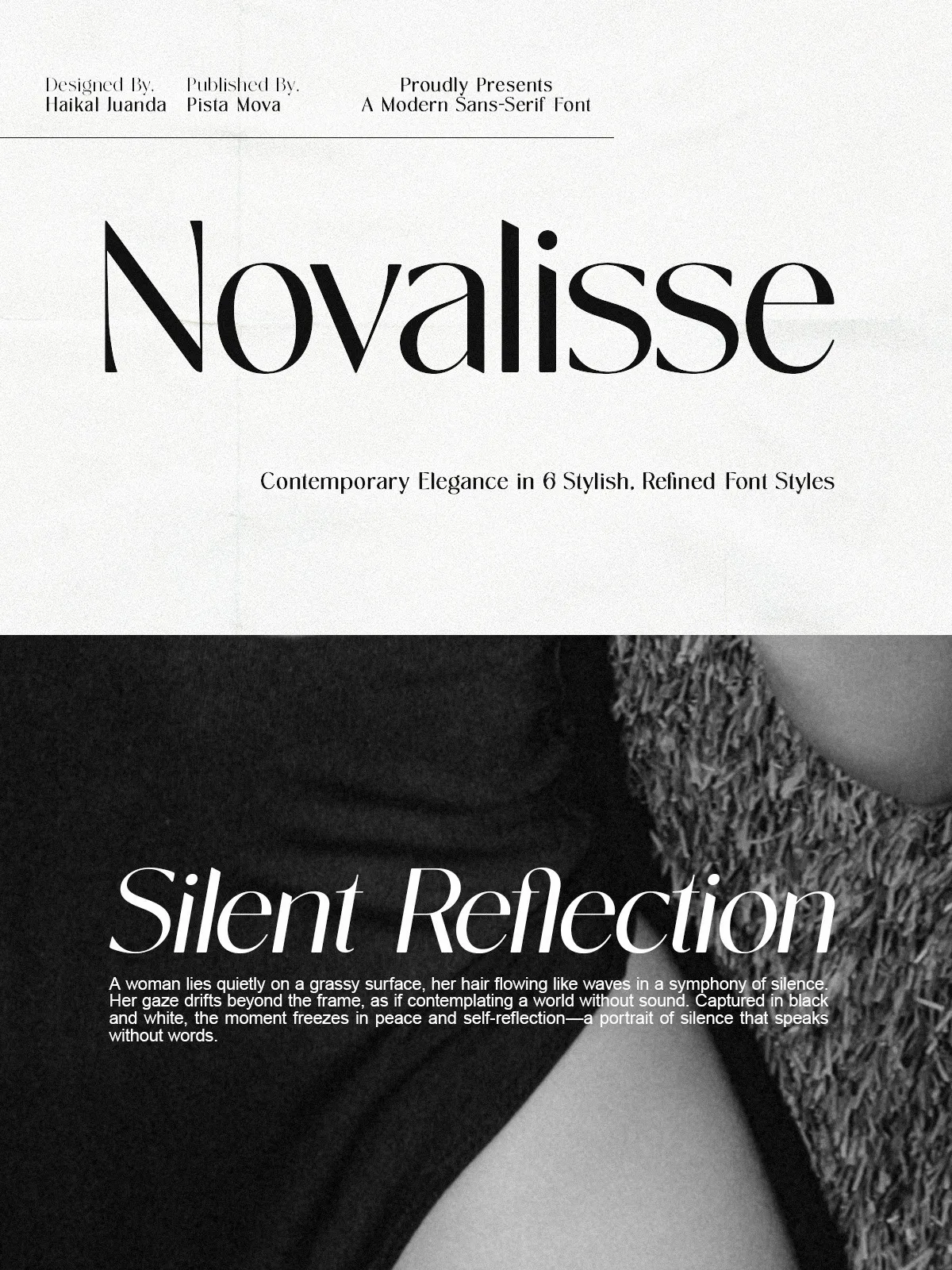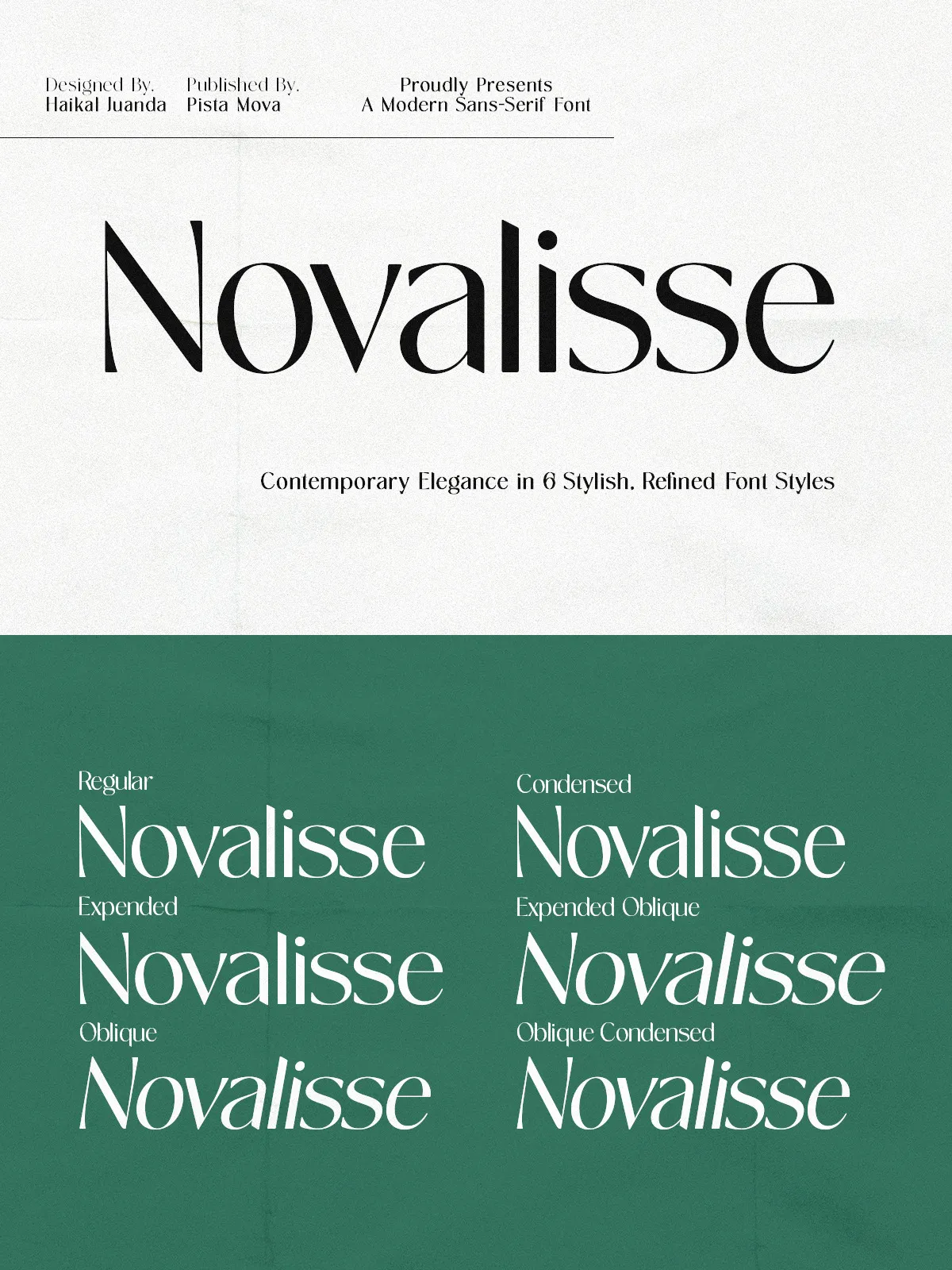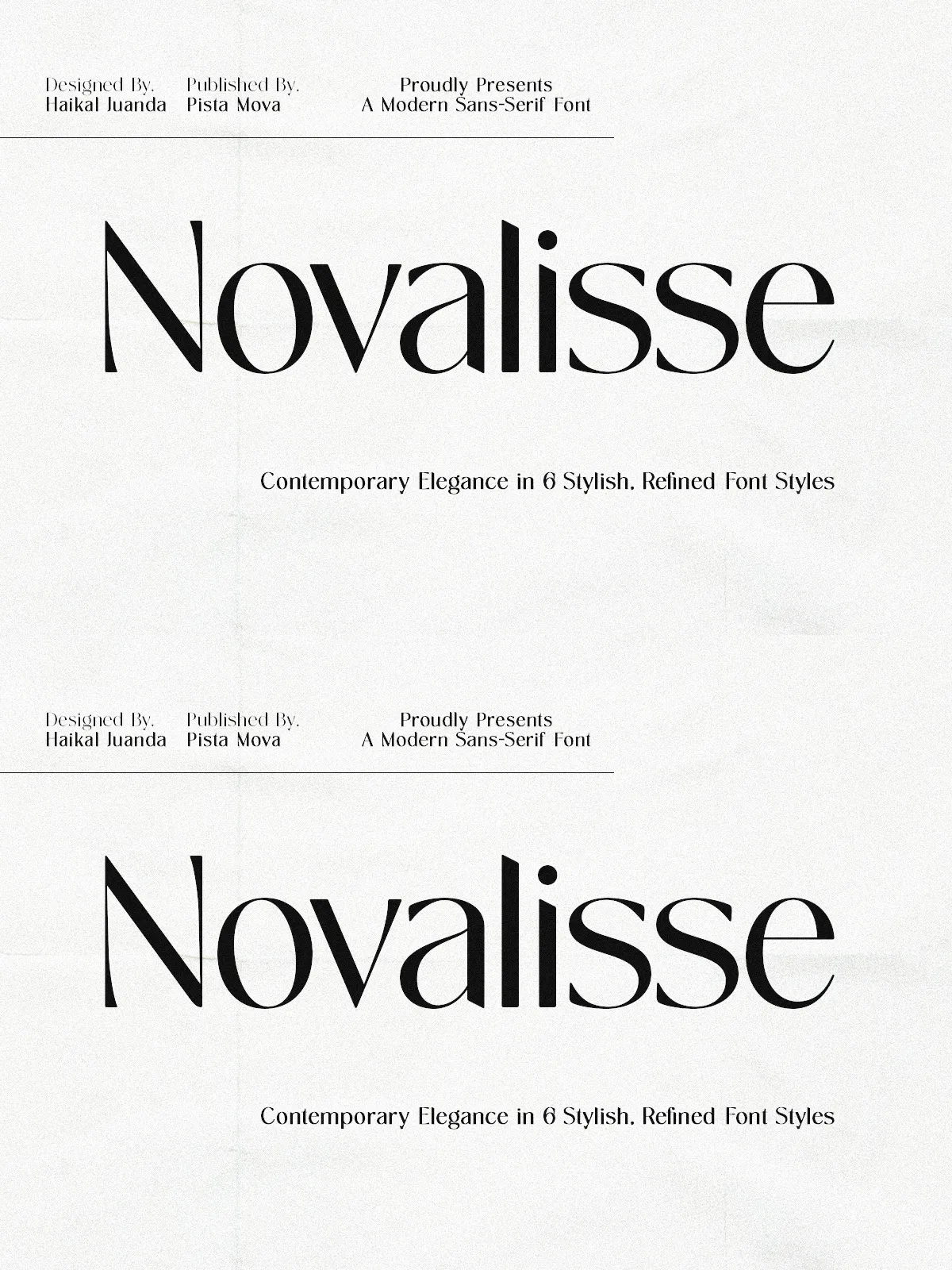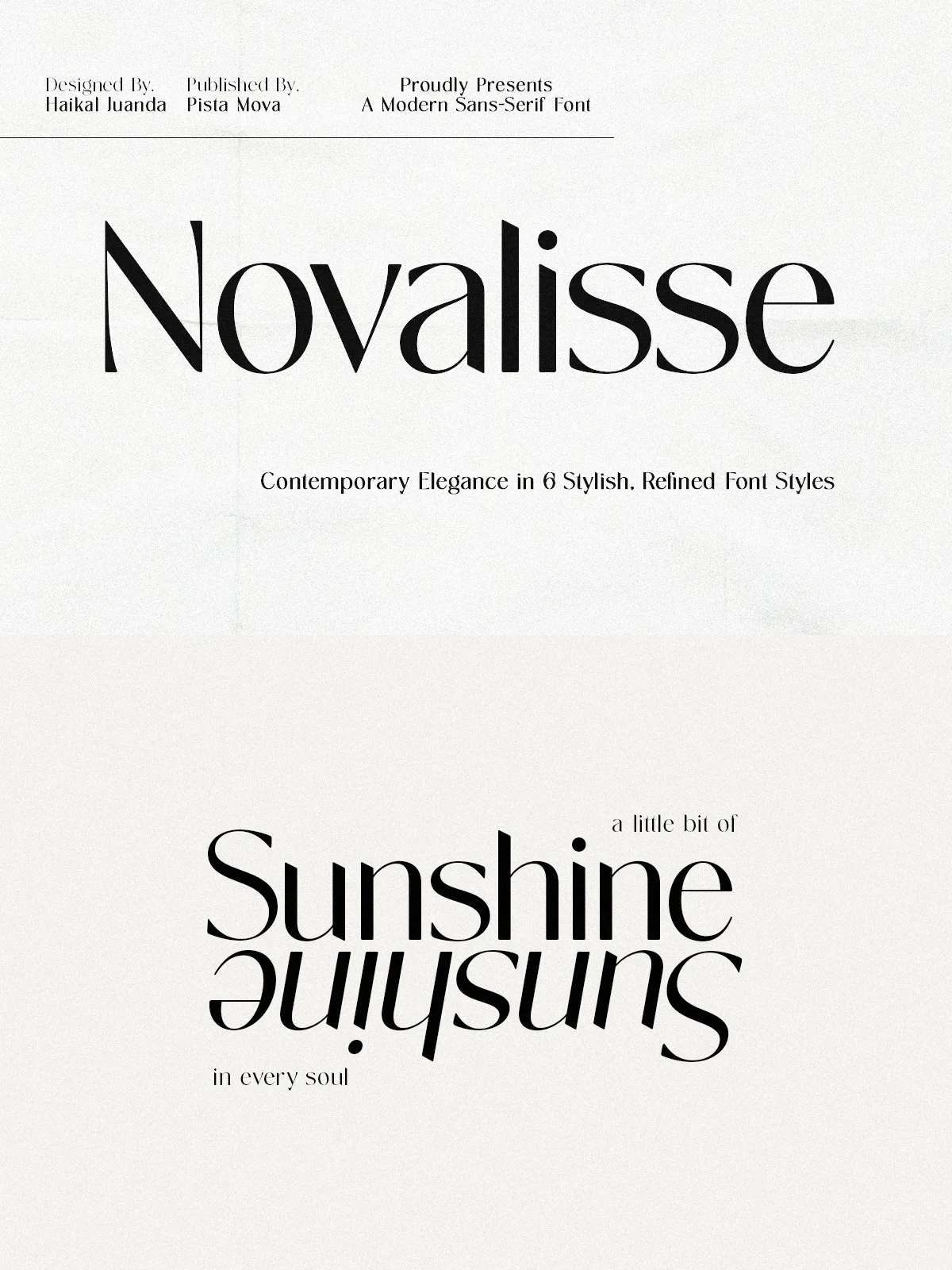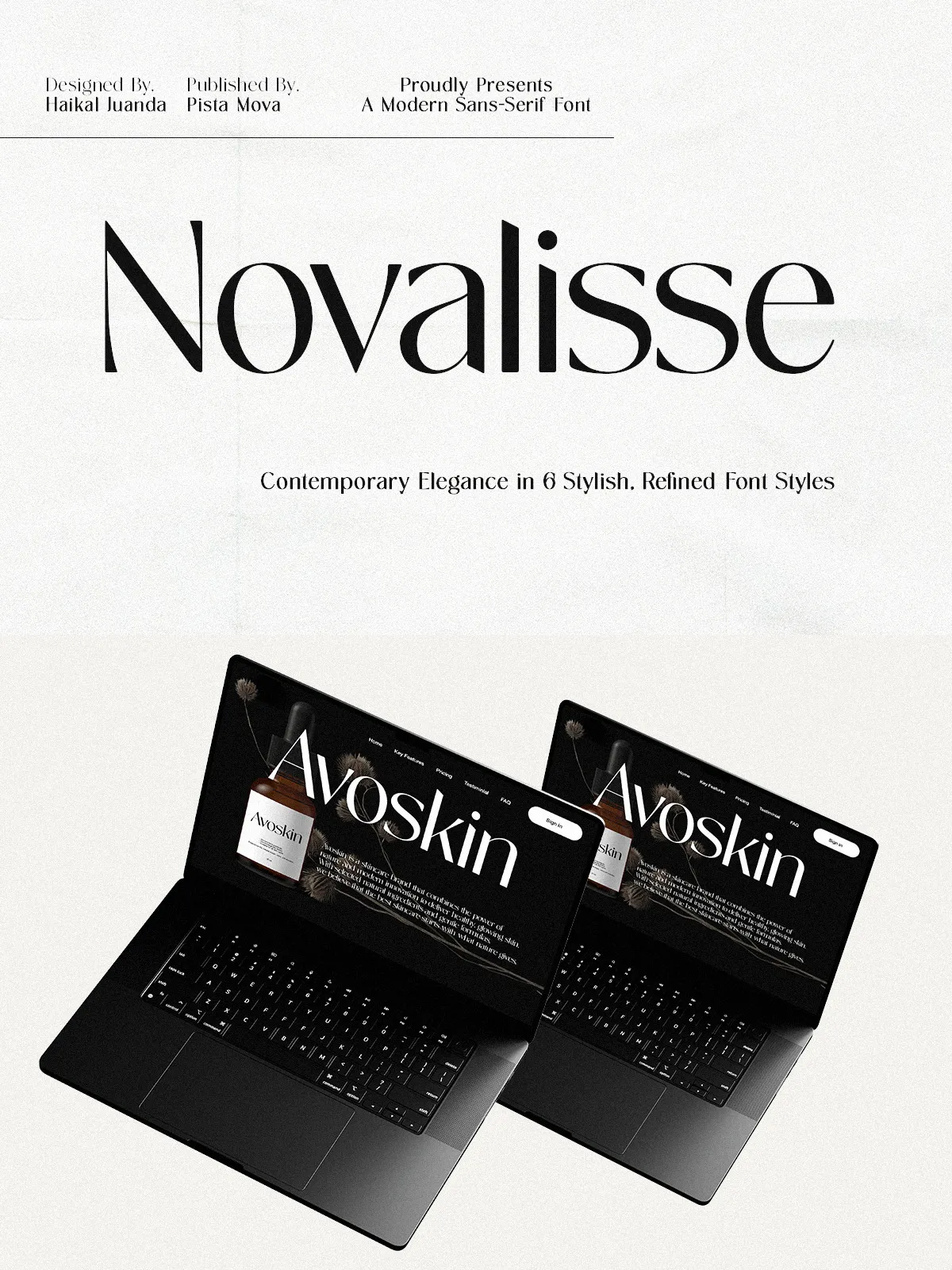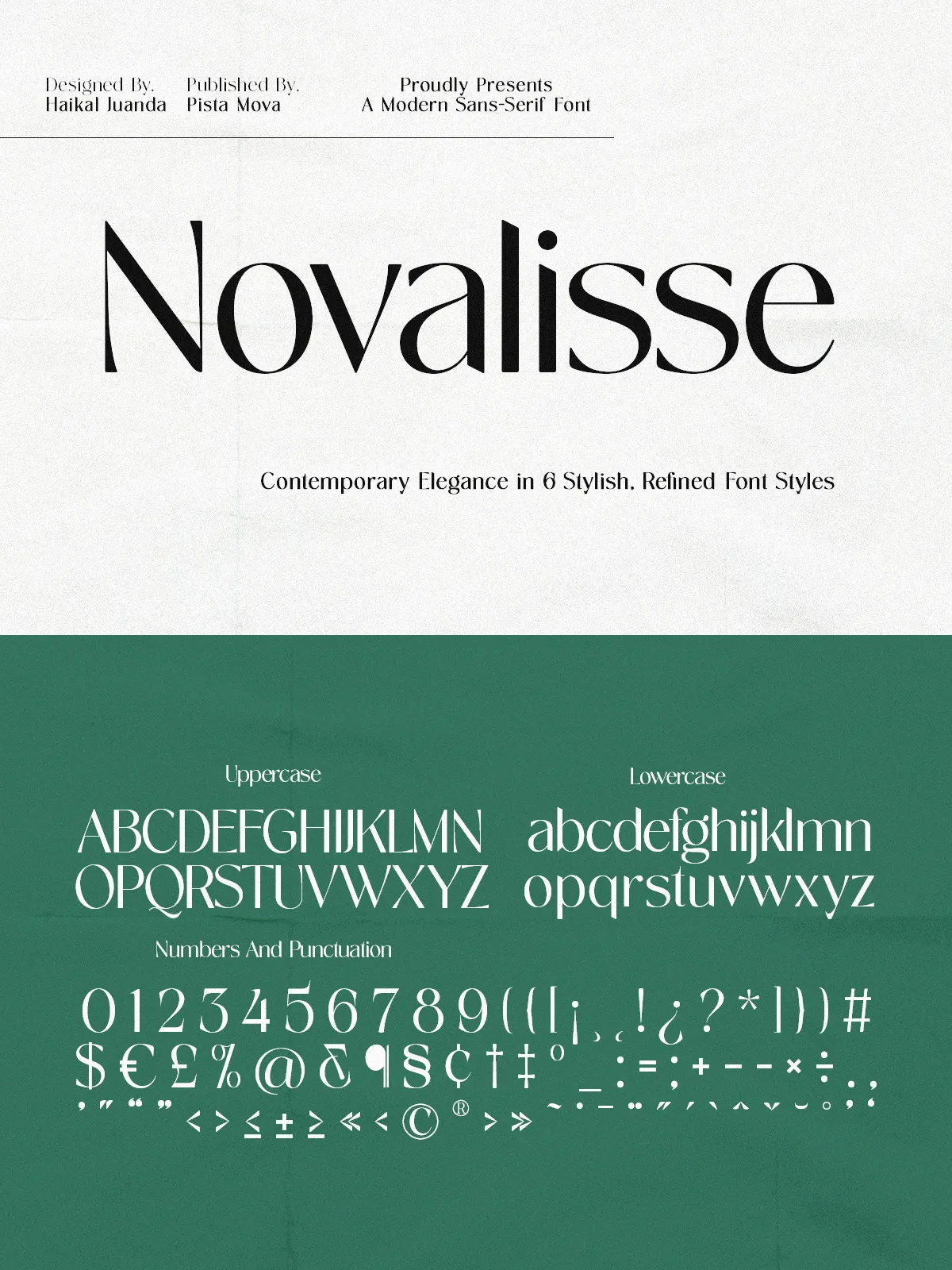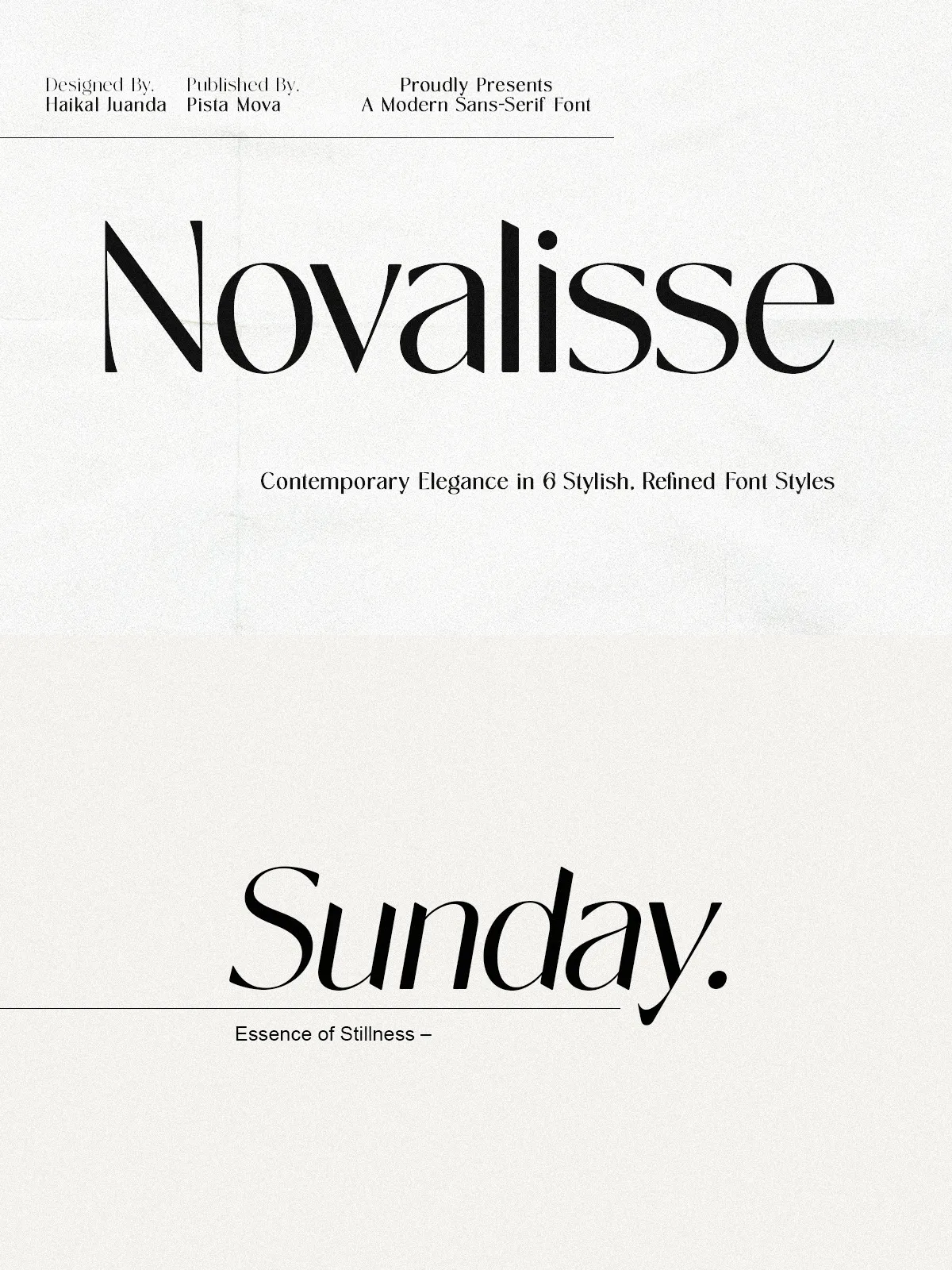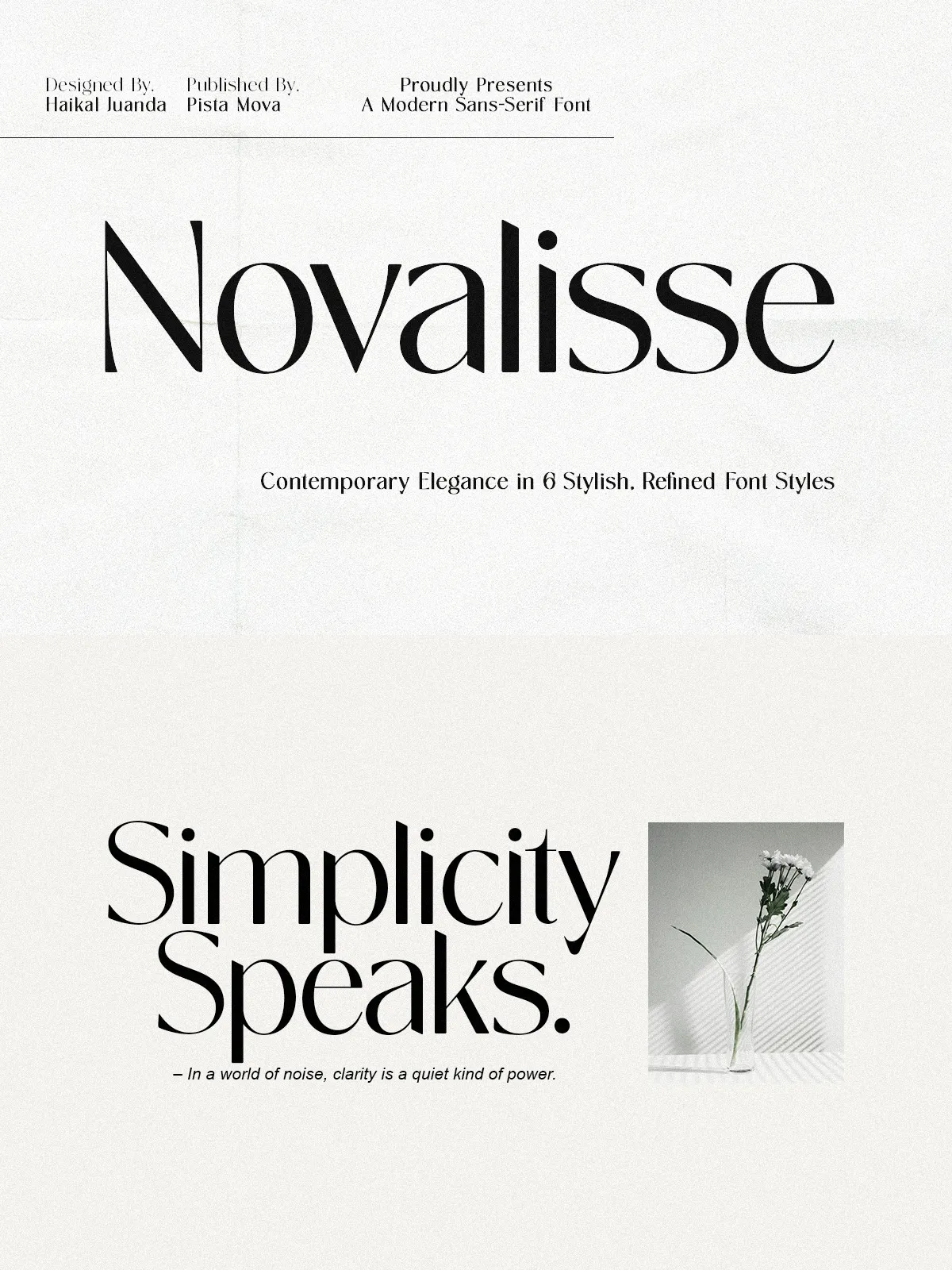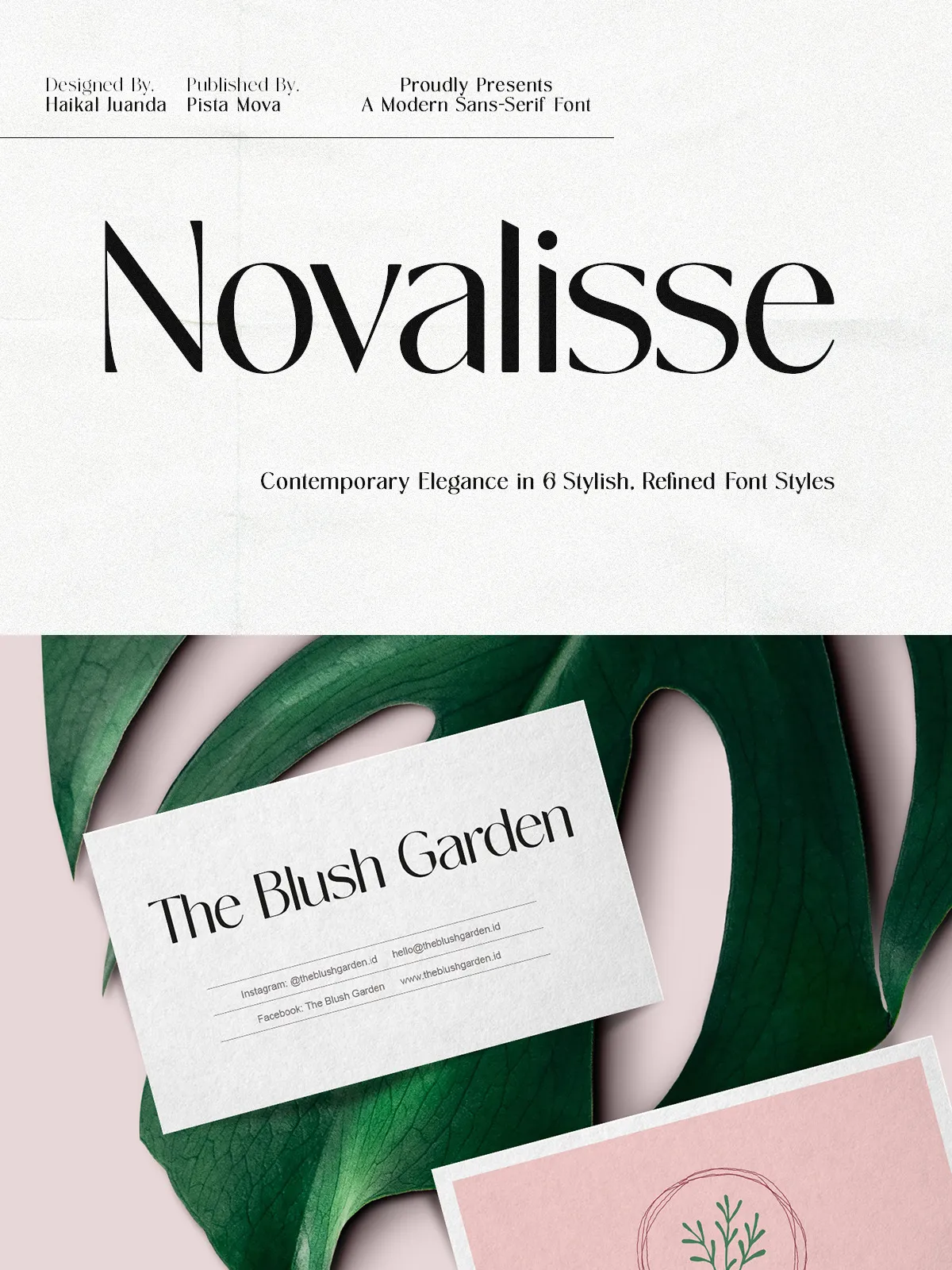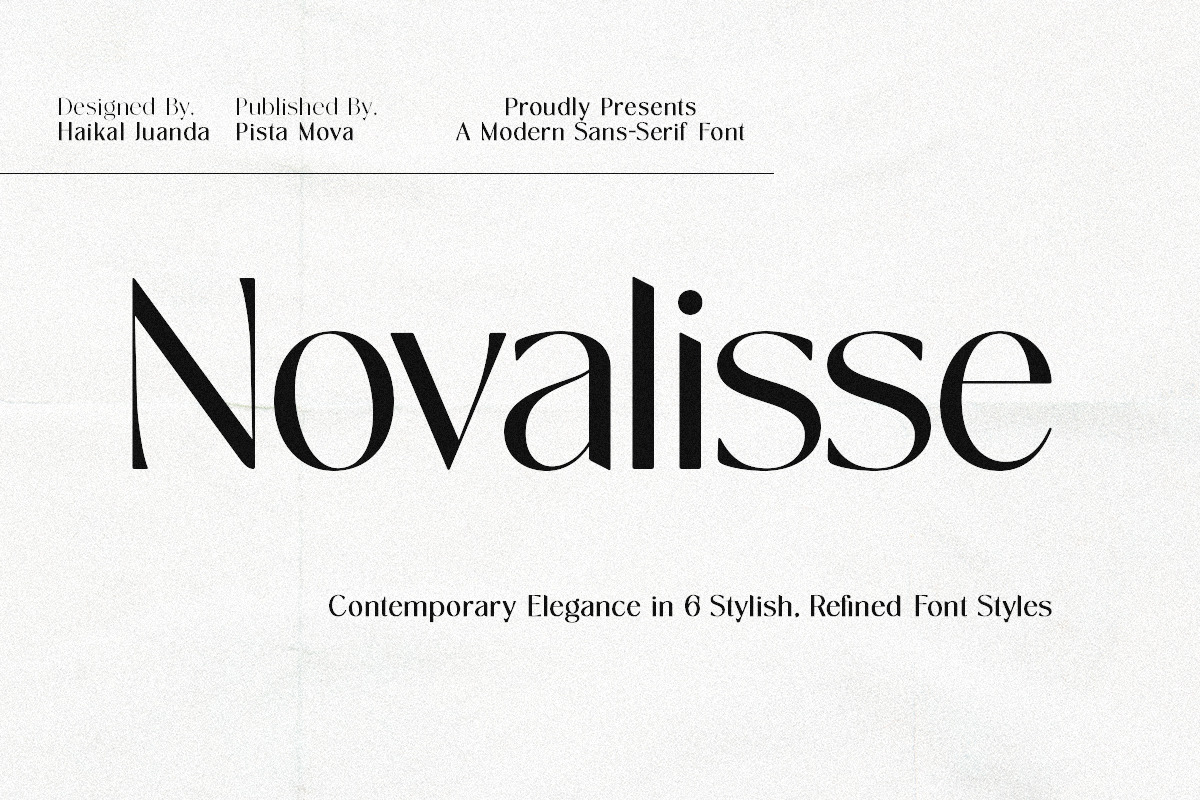
Novalisse delivers a poised, modern aesthetic that elevates design work across print and digital platforms. Crafted with high-contrast strokes and elegant curves, Novalisse balances refinement and readability. Designers will find it equally powerful in long-form editorial settings, bold brand identities, and clean web interfaces. Every character actively supports legibility while projecting a confident, timeless voice.
Design Characteristics
High Contrast and Graceful Proportions
Novalisse emphasizes refined contrast and well-calibrated proportions. Its letterforms combine slender stems with purposeful terminals, creating a visual rhythm that guides the reader’s eye. The typeface preserves clarity at small sizes and asserts presence in display settings, allowing it to adapt without compromise.
True Oblique and Dynamic Movement
Instead of a mechanically slanted italic, Novalisse includes a true oblique that preserves typographic harmony with the upright styles. The oblique introduces subtle motion and emphasis without disrupting baseline alignment, enabling richer typographic hierarchy and expressive layouts.
OpenType Features & Advanced Typography
Ligatures, Alternates, and Control
Novalisse ships with curated ligatures and OpenType features that allow designers to fine-tune typographic detail. Activate discretionary ligatures to craft bespoke wordmarks, or use stylistic alternates to refine headline tone. These features empower typographers to shape personality while maintaining consistent metrics.
Smart Typographic Tools
Contextual alternates, small caps, and numeral options enable precise typographic control. Novalisse supports proportional and tabular figures, lining and old-style numerals, and carefully considered kerning pairs that reduce visual collisions and improve rhythm across languages and sizes.
Multilingual Support & Coverage
Global-Ready Glyph Set
Novalisse supports over 90 languages, enabling confident deployment across international projects. The glyph set includes essential diacritics, punctuation, currency symbols, and extended Latin characters. Designers can rely on consistent typographic voice across markets without fallback compromises.
Practical Applications
Editorial and Long-Form Text
Novalisse reads comfortably at paragraph lengths thanks to balanced counters and a stable vertical rhythm. Use it for magazines, books, and online articles where clarity and refined tone matter. Its optical color maintains continuity across columns and spreads.
Brand Identity and Logo Work
Novalisse projects sophistication for premium brands. Its elegant letterforms sharpen logotypes and brand systems, while OpenType alternates allow you to customize wordmarks with subtle flair. The family’s variety ensures consistent branding from headlines to body copy.
Web and UI Design
Novalisse adapts to screens with crisp rendering and strong character recognition. Use web-optimized formats for responsive typography that scales gracefully. Its clear shapes improve UX for navigation, headings, and interface labels.
Packaging, Invitations, and Print
Novalisse brings polished presence to packaging, stationery, and invitations. The typeface enhances tactile materials and upscale print finishes, helping products and correspondence feel deliberately crafted.
Family Members
- Novalisse (Regular and other weights)
- Novalisse Oblique
- Novalisse Oblique Condensed
- Novalisse Expanded
- Novalisse Condensed
- Novalisse Expanded Oblique